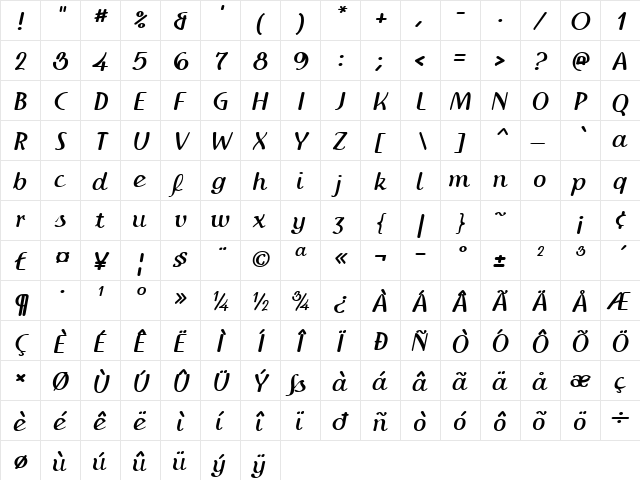
IngrianaCasual BoldItalic Font Preview
IngrianaCasual BoldItalic
Design Context for IngrianaCasual Typeface
IngrianaCasual takes a measured approach to typography — its balanced proportions and neutral character make it a reliable workhorse for both digital and print work. The dynamic lean of this cut emphasises speed and emphasis in any layout. The heavy weight commands attention and anchors typographic hierarchies.